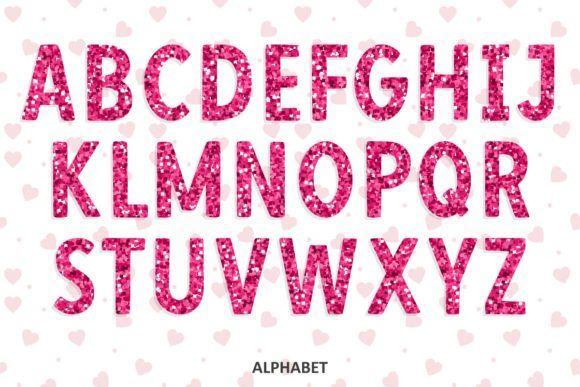
Valentine Pink Glitter Font
Introducing the “Valentine Pink Glitter” font with a classy touch. — Pink glitter patterns that represent the day of love, Valentine’s Day. This font can be used in a variety of ways and will make your work look super cute! Its mesmerizing shine twinkles like someone cast a spell on it that will brighten up each of your designs. Perfect for logos, posters, websites, T-shirts and more. Add it confidently to your projects, and you will love the results.